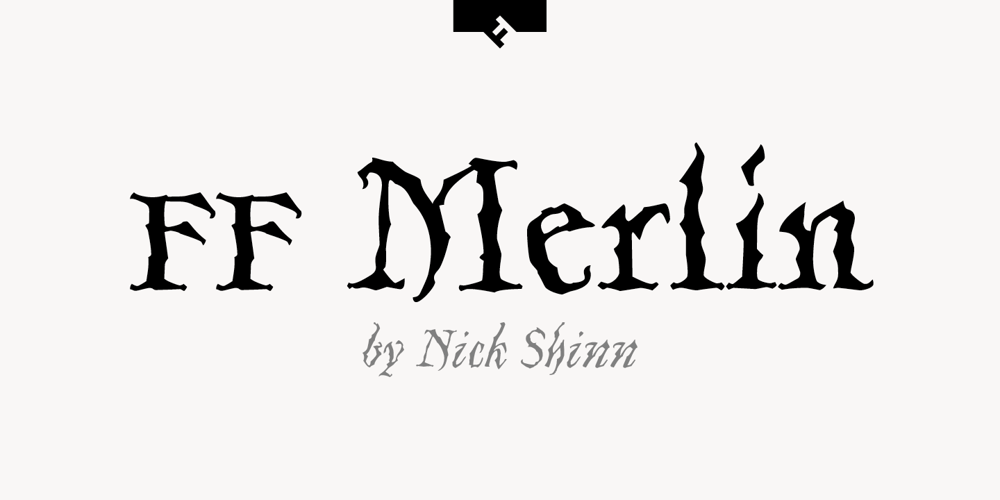
FF Merlin Font Family was designed by Nick Shinn and published by FontFont. FF Merlin contains 3 styles and family package options. Canadian type designer Nick Shinn created this display FontFont in 1997. The family contains 3 weights: Regular, Italic, and Bold and is ideally suited for advertising and packaging, festive occasions as well as poster and billboards. FF Merlin provides advanced typographical support with features such as ligatures, small capitals, titling alternates, alternate characters, and case-sensitive forms. It comes with a complete range of figure set options – oldstyle and lining figures, each in tabular and proportional widths.